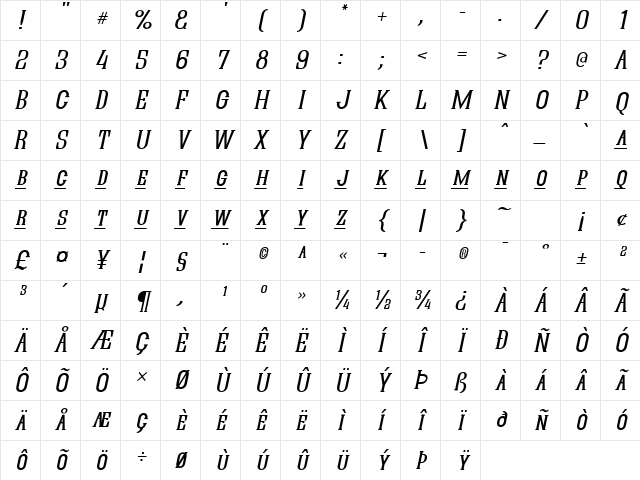
Quastic Kaps Line Italic Free Font
Quastic Kaps Line Italic
Foundry: Graham Meade,,,
Design Context for Quastic Kaps Line
Quastic Kaps Line is a composed and adaptable typeface that performs quietly and consistently across a wide range of design contexts. The slanted form adds forward momentum and visual energy.